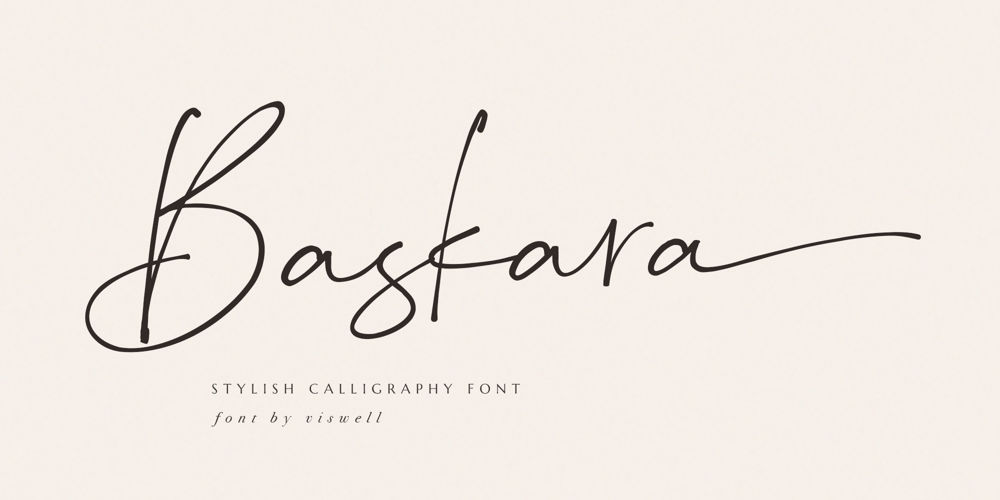
Baskara Font Family was designed by Agam Rahmadan and published by Viswell. Baskara contains 1 styles and family package options. Baskara is a stylish calligraphy font, Baskara made with natural hand strokes that will be suitable for your various design needs such as branding, logo signatures, weddings, photography and many others.Baskara includes : Uppercase and Lowercase Character Numeral and Punctuation Stylishtic Alternates (Beggining and ending lowercase swash) Multilingual Support